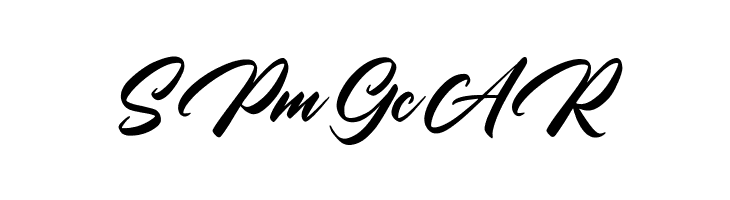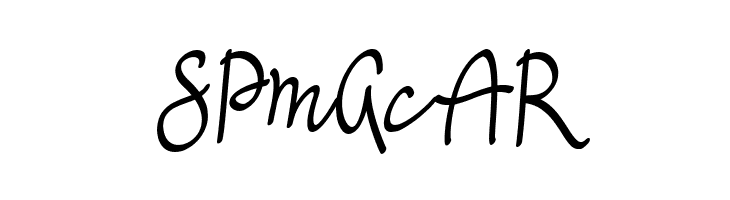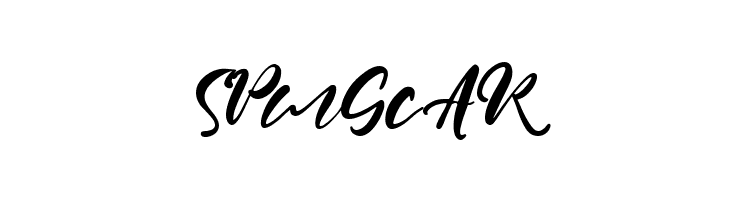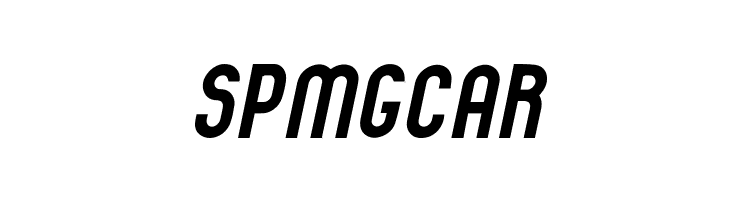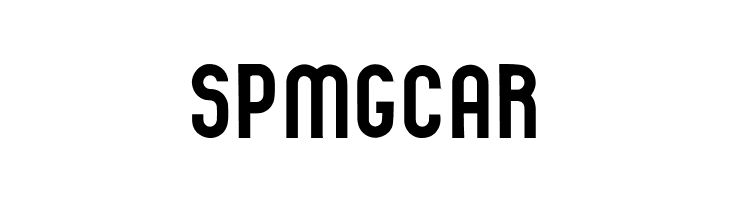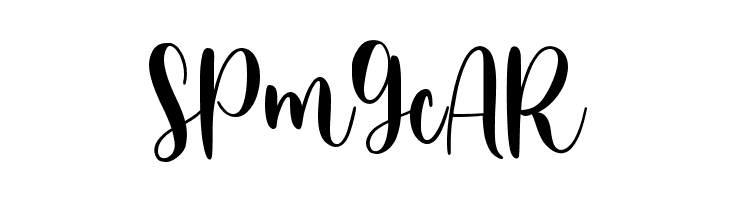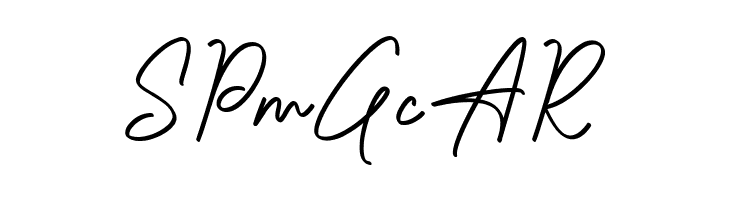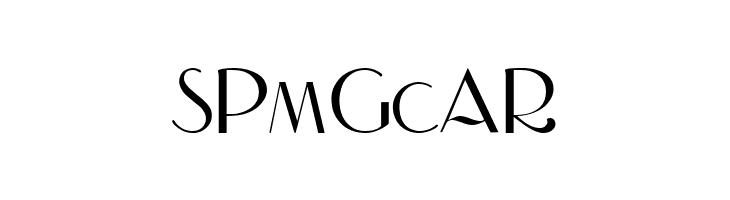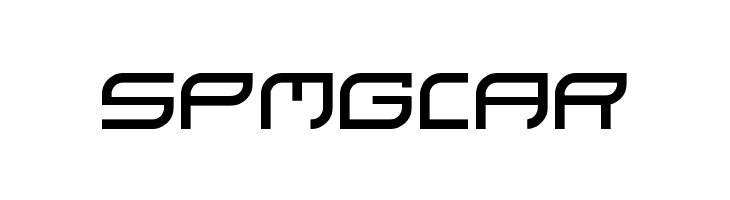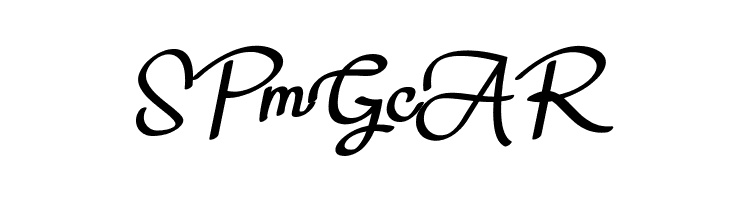
• Mystic Crystal
A dynamic and elegant script font with flowing, cursive letterforms.
• Mystical Snow
A whimsical and elegant script font with flowing strokes.
• Nadall
A modern serif font with sharp, angular serifs and dynamic stroke variations.
• Naella
A playful, casual handwritten font with fluid, connected letterforms.
• Nagitta Personal Use
An elegant, flowing script font with ornate, cursive letterforms.
• Nando
A bold, geometric font with a modern and structured design.
• Nando Italic
A bold, italic sans-serif font with a modern and dynamic style.
• Nathan Gilbert
A flowing, cursive font with elegant, sweeping strokes and a sophisticated appearance.
• natura Bold
A futuristic, geometric font with clean lines and a tech-inspired aesthetic.
• Nature Beauty
A graceful and fluid handwritten font with elegant, flowing strokes.